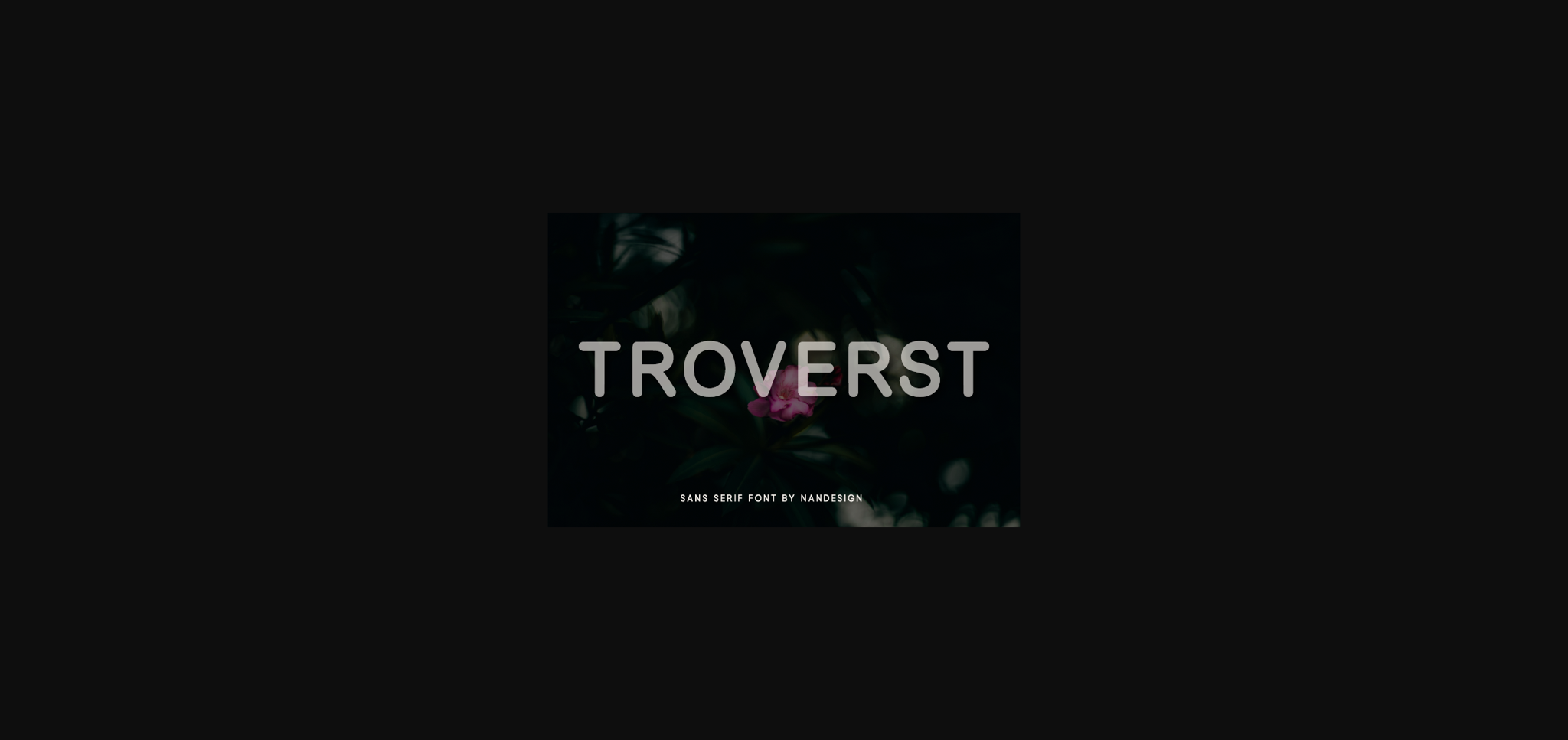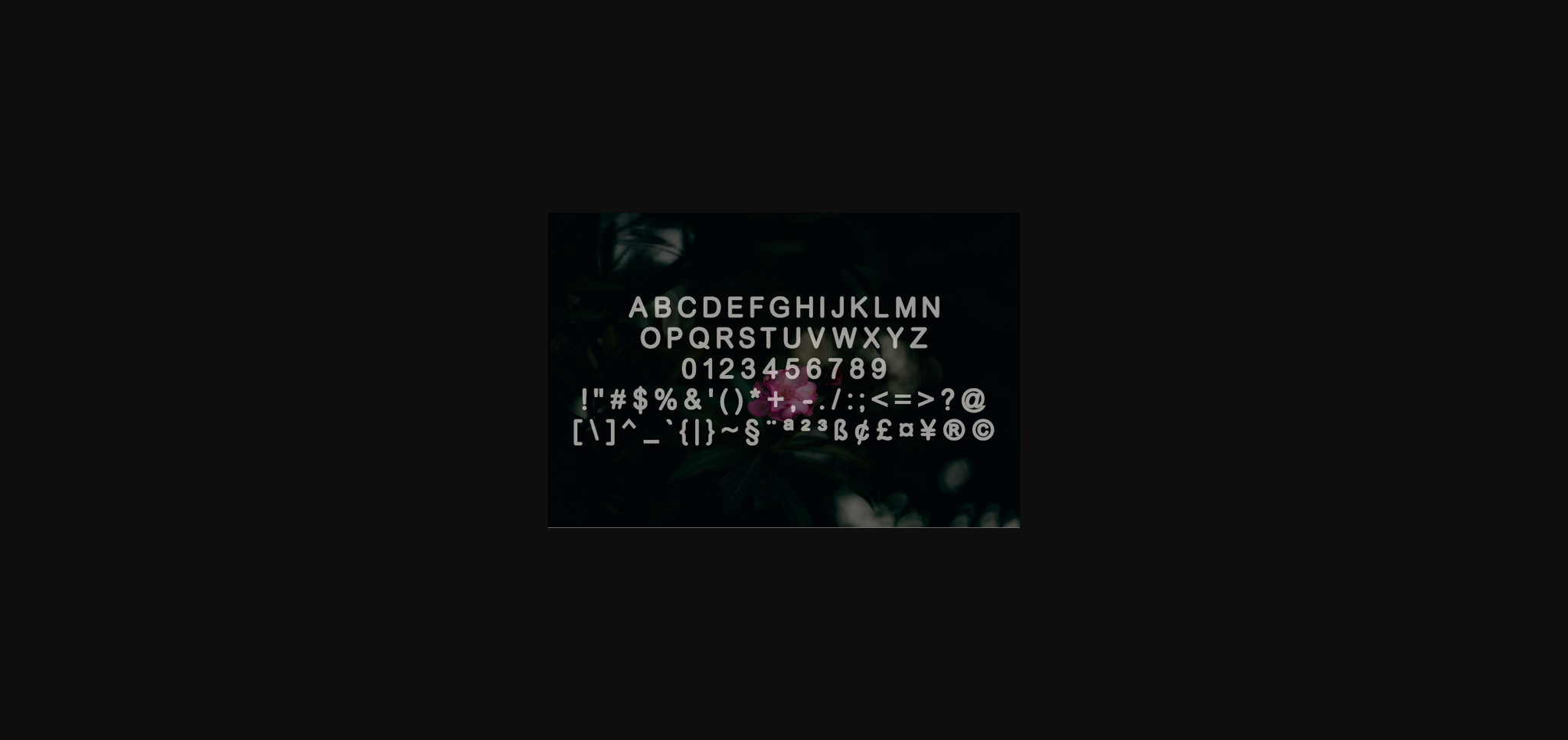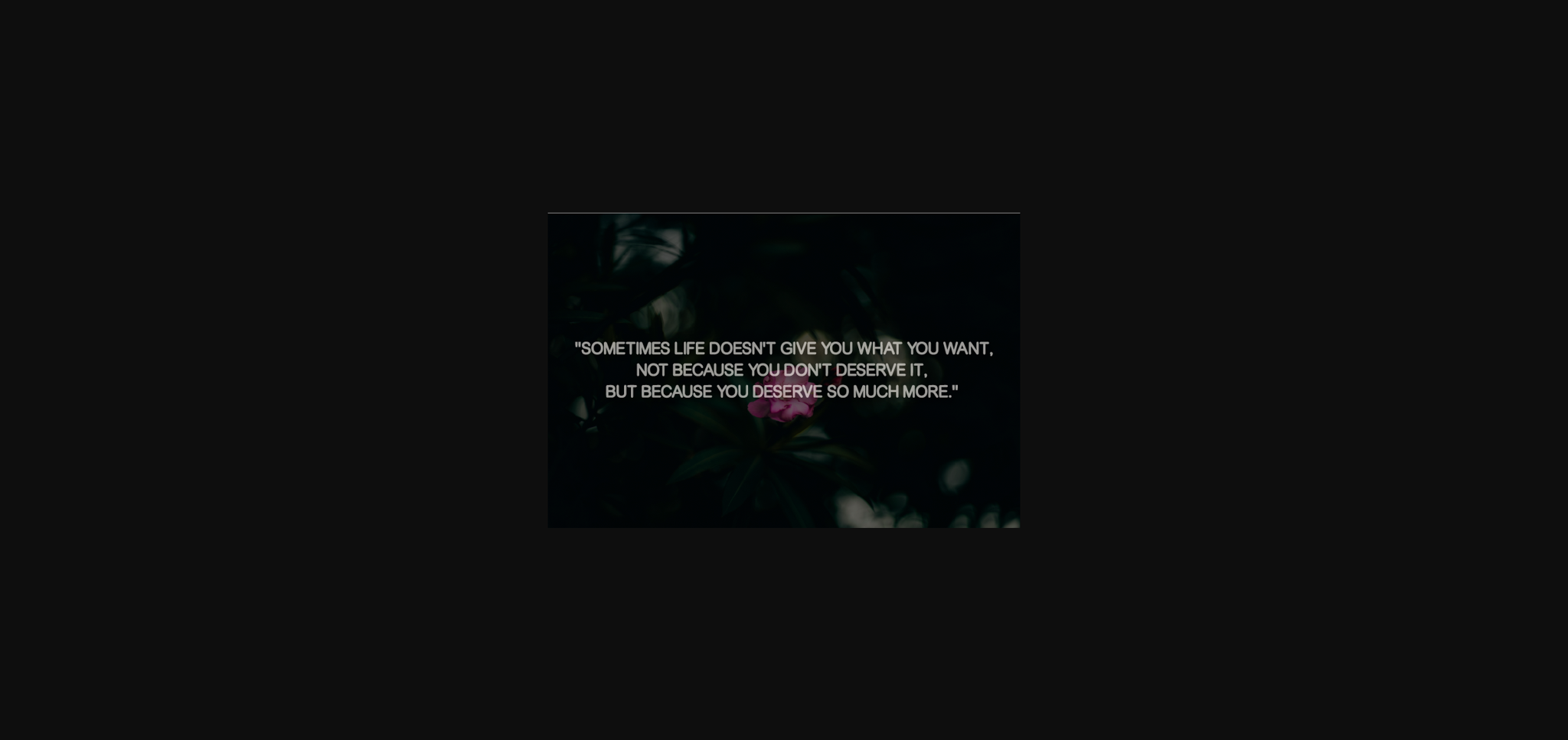
HomeSans Serif FontsTroverst Font Sans Serif Fonts Troverst Font FacebookTwitterPinterestWhatsApp 1 of 5 ... Troverst Font Poster 2... Troverst Font Poster 3... Troverst Font Poster 4... Troverst Font Poster 5... About Troverst Font Troverst is an elegant rounded sans serif font. It will complement any design need perfectly with its perfectly balanced mix of the smooth and sharp! DOWNLOAD NOW People also explored Berlala Font Gold Butter Font Monicallisa Font Exit Strategy Baby Lovely Script Font HK Slab Piranya Font Bonetto Glam Font Cute Unicorn Font 265 0 TagsTroverst Font Previous articleLozano FontNext articleCheloise Font LEAVE A REPLY Cancel reply Comment: Please enter your comment! Name:* Please enter your name here Email:* You have entered an incorrect email address! Please enter your email address here Website: Save my name, email, and website in this browser for the next time I comment. Personal Use Free Harshita Personal Use Free Read more about this font Adelaide Personal Use Free Read more about this font Burnstown Dam Personal Use Free Read more about this font Denisha Personal Use Free Read more about this font BLOG Free Fonts Risk: Why Free Fonts Can Be Dangerous for Designers Free Fonts Risk: Why Free Fonts Can Be Dangerous for Designers Using free fonts is a common practice in web and graphic design. However, the... Top 7 Google Fonts Alternatives for Faster and Privacy-Friendly Web Design (2025) Where to Buy American Fonts Online in 2024 To increase your work productivity, choose the most readable fonts.